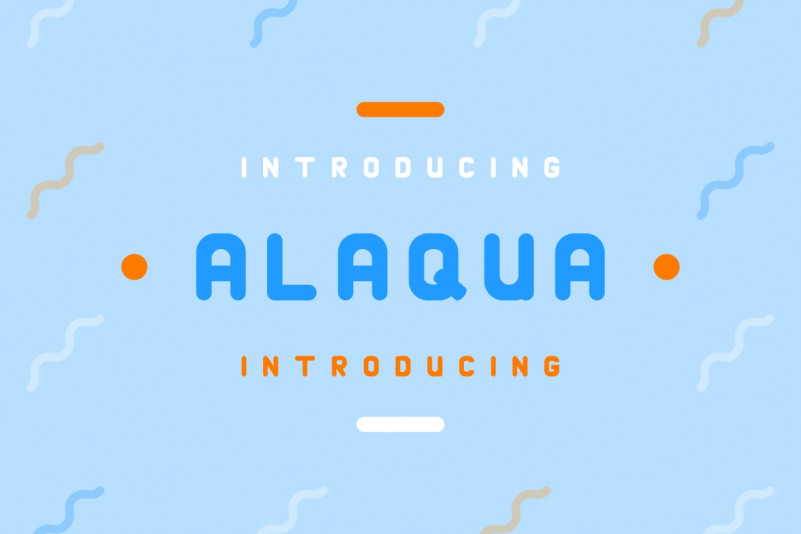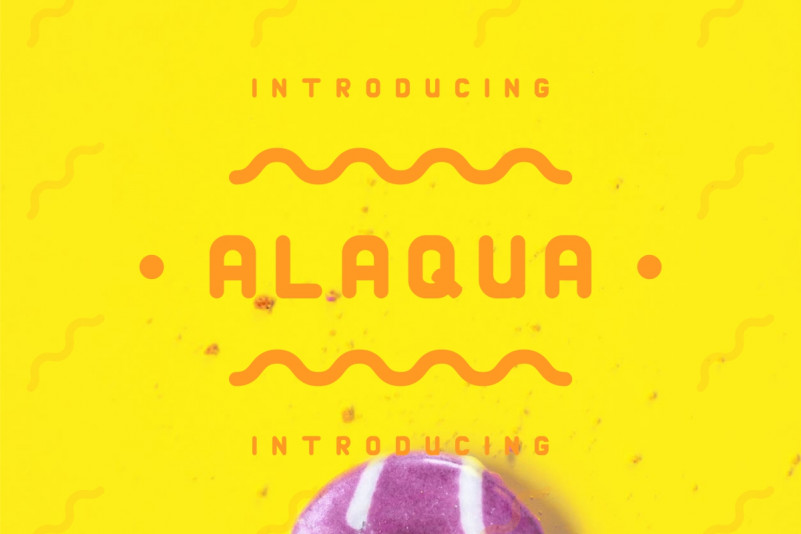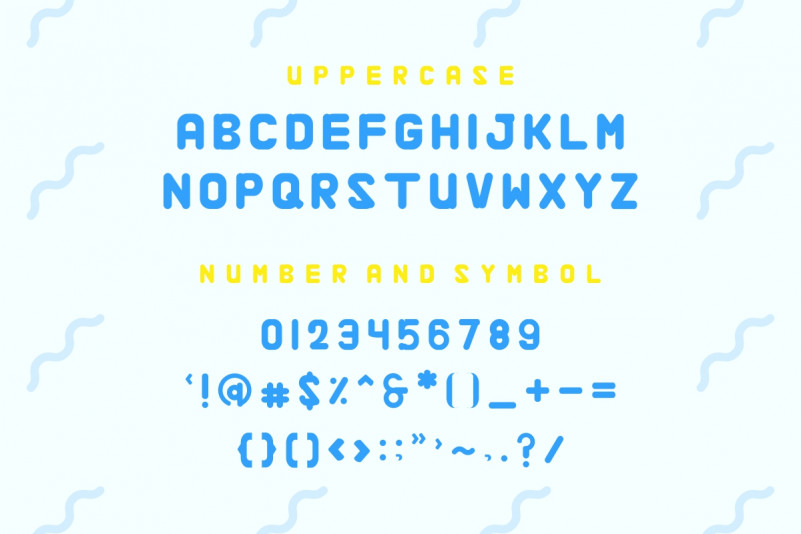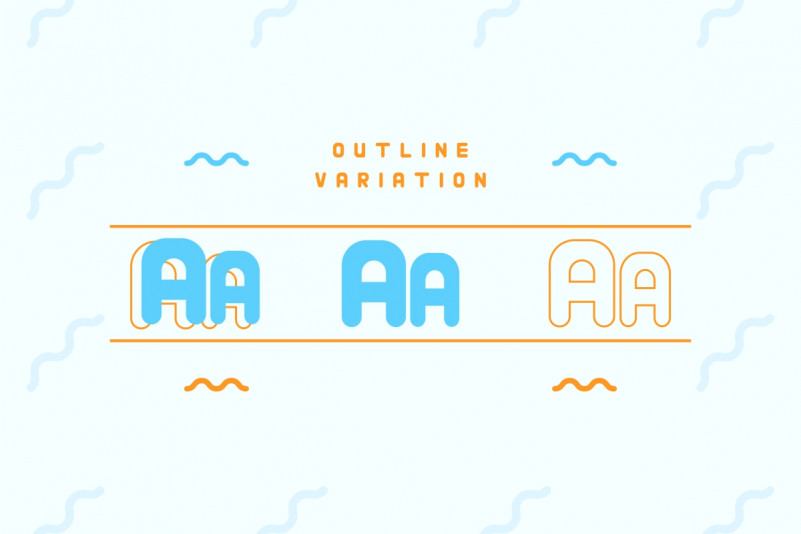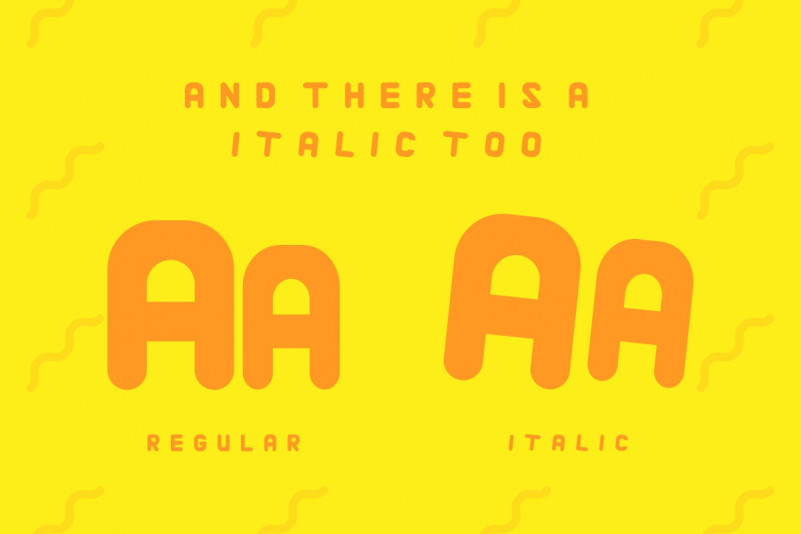
Alaqua Sans Font has 3 styles : Regular, Italic and Outline The Glyph are made smooth. It looks awesome for any food packaging, beverage, street food, summer cafe, tropical vibe, cheer theme, bright and colorful.